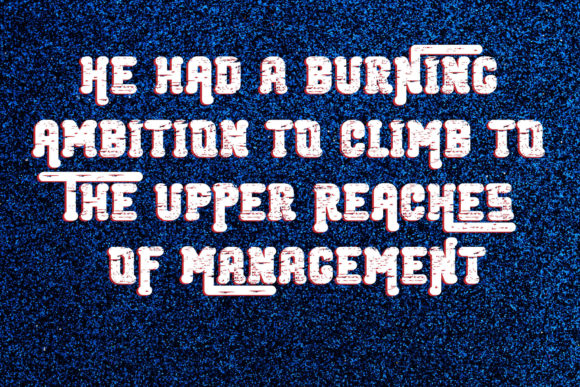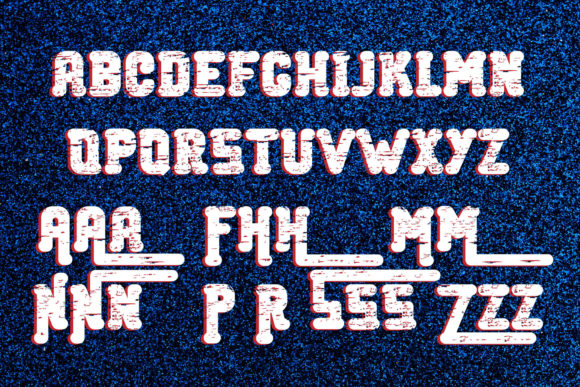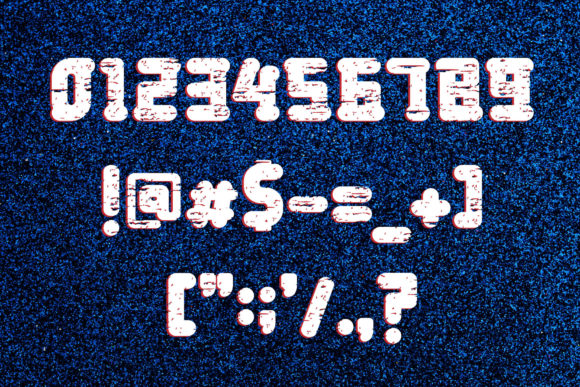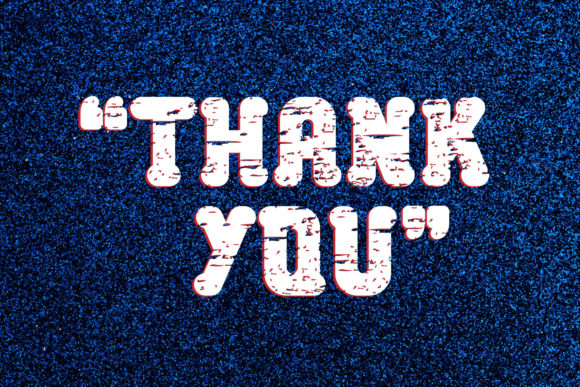
Burning Font: Unleash the Power of Speed and Aggression in Your Designs
In the world of typography, fonts play a crucial role in conveying the tone and personality of a design. For designers and crafters looking to add a touch of speed and power to their work, the Burning Font is an excellent choice. This cool, rough styled, and assertive display font is perfect for making a statement and taking your designs to the next level.
What Makes Burning Font Stand Out?
Burning Font is a unique and eye-catching typeface that is sure to grab attention. Its rough, textured appearance gives it a raw and edgy feel, making it ideal for designs related to speed, power, or both. The font’s assertive style demands attention and exudes confidence, making it perfect for bold and daring designs.
One of the standout features of Burning Font is its PUA (Private Use Area) encoding. This means that you can access all of the glyphs and swashes with ease, giving you maximum flexibility and creative control over your designs. With PUA encoding, you can effortlessly navigate the font’s extensive character set and experiment with different combinations to achieve the perfect look.
Perfect for Designs that Demand Attention
Burning Font is specifically designed for display purposes, making it perfect for headlines, titles, and other attention-grabbing elements. Its bold and assertive style ensures that your message gets noticed, whether you’re designing a logo, poster, or social media graphic. The font’s speed and power connotations also make it an excellent choice for designs related to sports, racing, or action-packed themes.
Tips for Using Burning Font Effectively
To get the most out of Burning Font, here are a few tips to keep in mind:
- Use it boldly: Burning Font is designed to make a statement, so don’t be afraid to use it in bold and eye-catching ways. Experiment with different sizes, colors, and combinations to create a lasting impression.
- Pair it with contrasting fonts: To create visual interest and balance, pair Burning Font with contrasting fonts that offer a smoother, more refined appearance.
- Experiment with swashes and glyphs: Take advantage of the font’s PUA encoding to experiment with different swashes and glyphs. This will help you add unique touches and personality to your designs.
Who Can Benefit from Burning Font?
Burning Font is an excellent choice for a wide range of designers and crafters, including:
- Graphic designers: Whether you’re working on a logo, brochure, or social media graphic, Burning Font is a great way to add a touch of speed and power to your designs.
- Advertising agencies: If you’re looking for a font that demands attention and grabs the viewer’s eye, Burning Font is an excellent choice.
- Crafters and DIY enthusiasts: Burning Font is perfect for crafters and DIY enthusiasts who want to add a bold and assertive touch to their projects, from handmade cards to custom apparel.
In conclusion, Burning Font is a powerful and attention-grabbing display font that’s perfect for designers and crafters looking to add a touch of speed and power to their work. With its PUA encoding, bold and assertive style, and extensive character set, this font is sure to take your designs to the next level. So why wait? Download Burning Font today and unleash the power of speed and aggression in your designs!